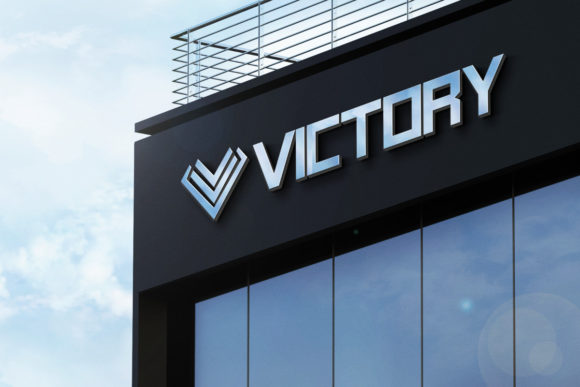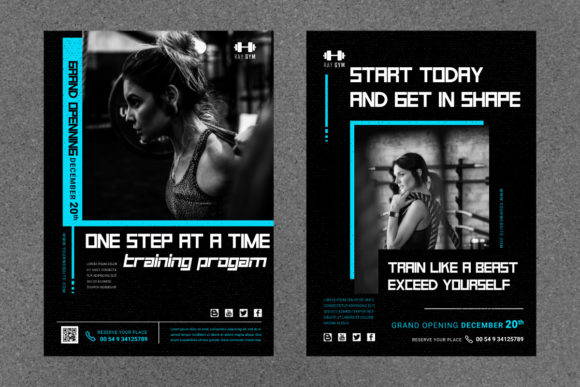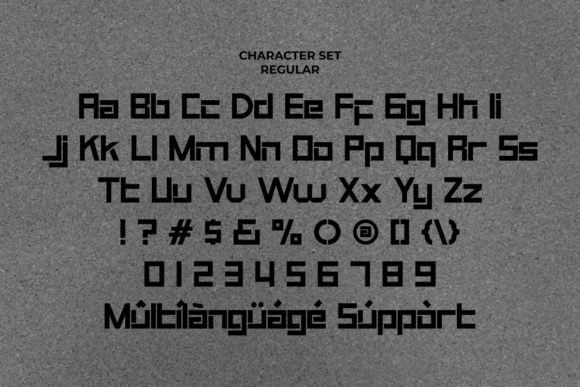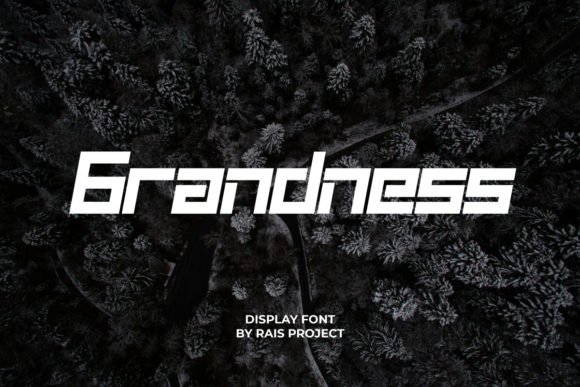
Introduction to Grandness Font
Grandness is a modern and sporty sans serif font with a unique shape that is great for sports, technology, games, etc.
Grandness is great for advertising, branding, magazine, signage, stationery, and any projects that need unique minimal typography The industries for this font are Automotive, Apps, Technology, games, magazines, Sports, etc.
Key Features of Grandness Font